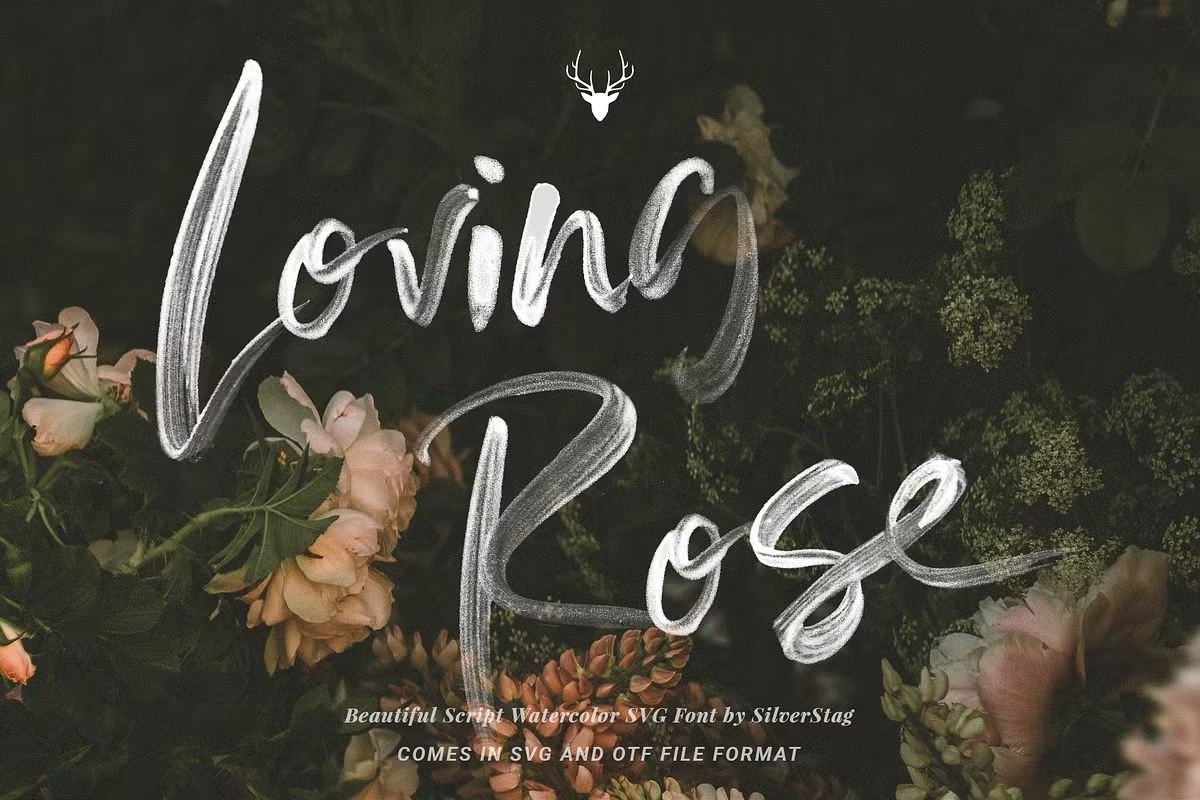
Loving Rose SVG Watercolor Font Free Download
Loving Rose Font Free Download is a stunning SVG watercolor font that brings a soft, artistic flair to your designs. With its delicate watercolor textures and flowing letterforms, Loving Rose is perfect for wedding invitations, greeting cards, branding, logos, and any project that requires a romantic, elegant touch.
This font features hand-painted watercolor effects that add depth and personality to each letter, creating a custom, handcrafted feel. It includes uppercase and lowercase letters, numerals, punctuation, and stylistic alternates, providing versatility and creative freedom.
Whether you're working on a romantic event invitation, a delicate branding project, or a custom design for a creative endeavor, Loving Rose Font Free Download adds beauty and charm with its watercolor aesthetic. Feel free to test it out in personal or mockup projects, and don’t forget to purchase the appropriate license for commercial use. Add a unique and artistic touch to your designs with this beautiful SVG watercolor font.